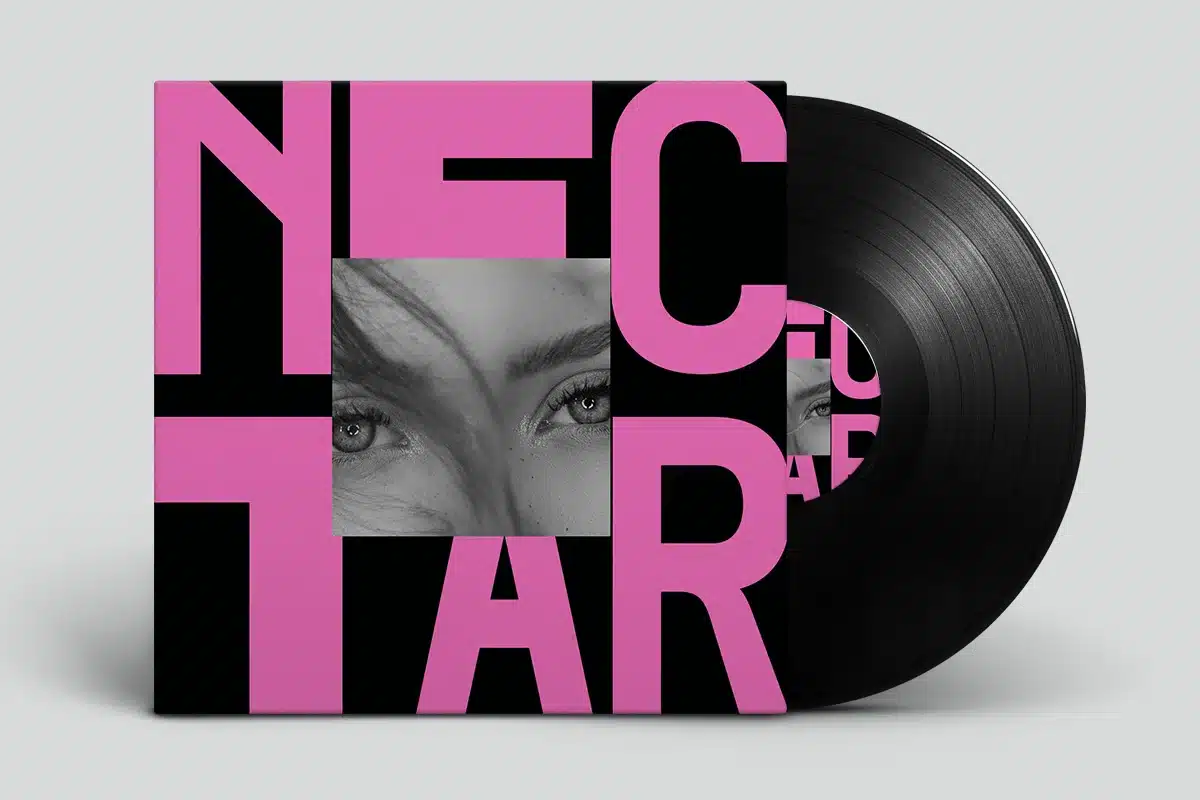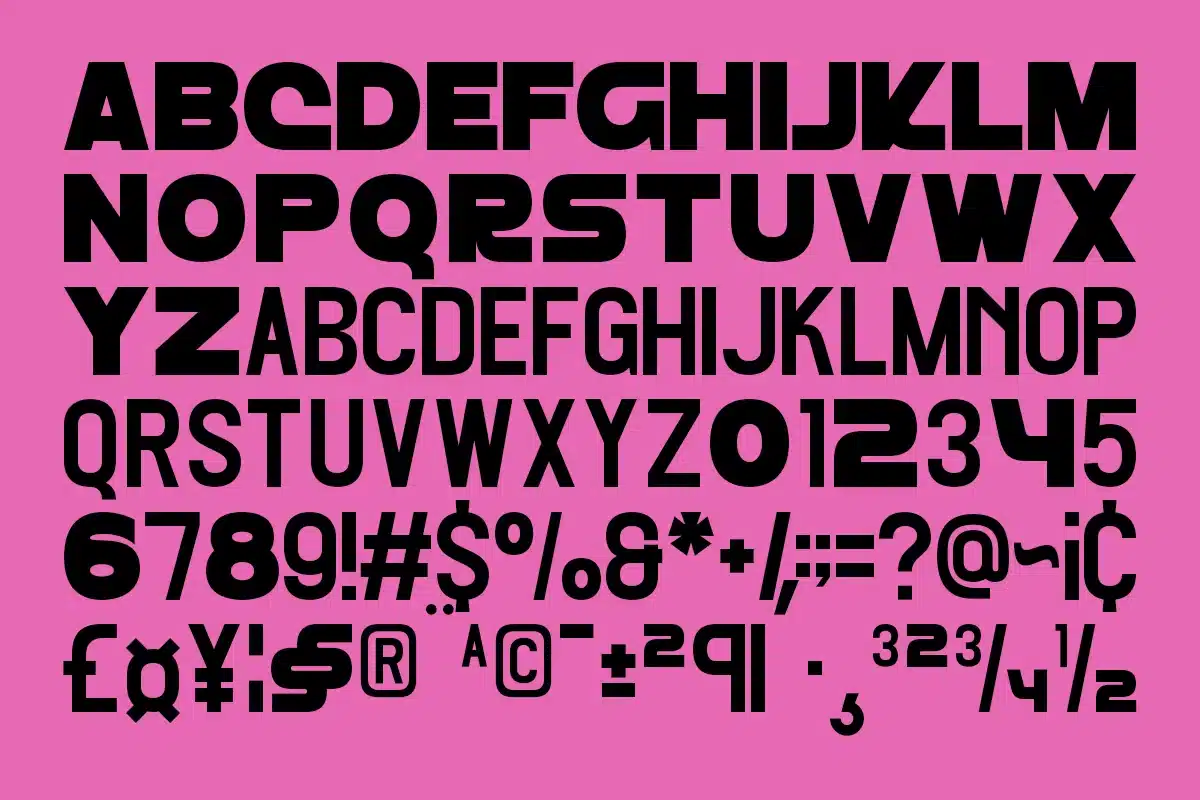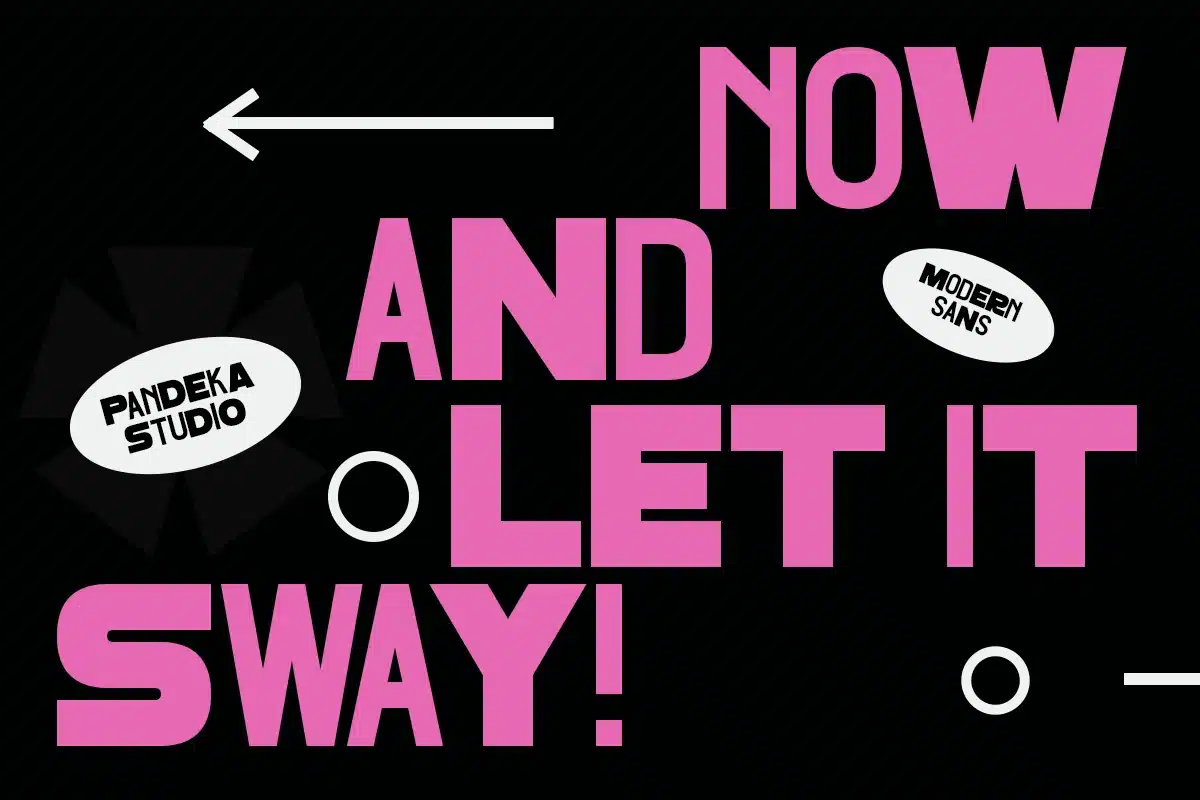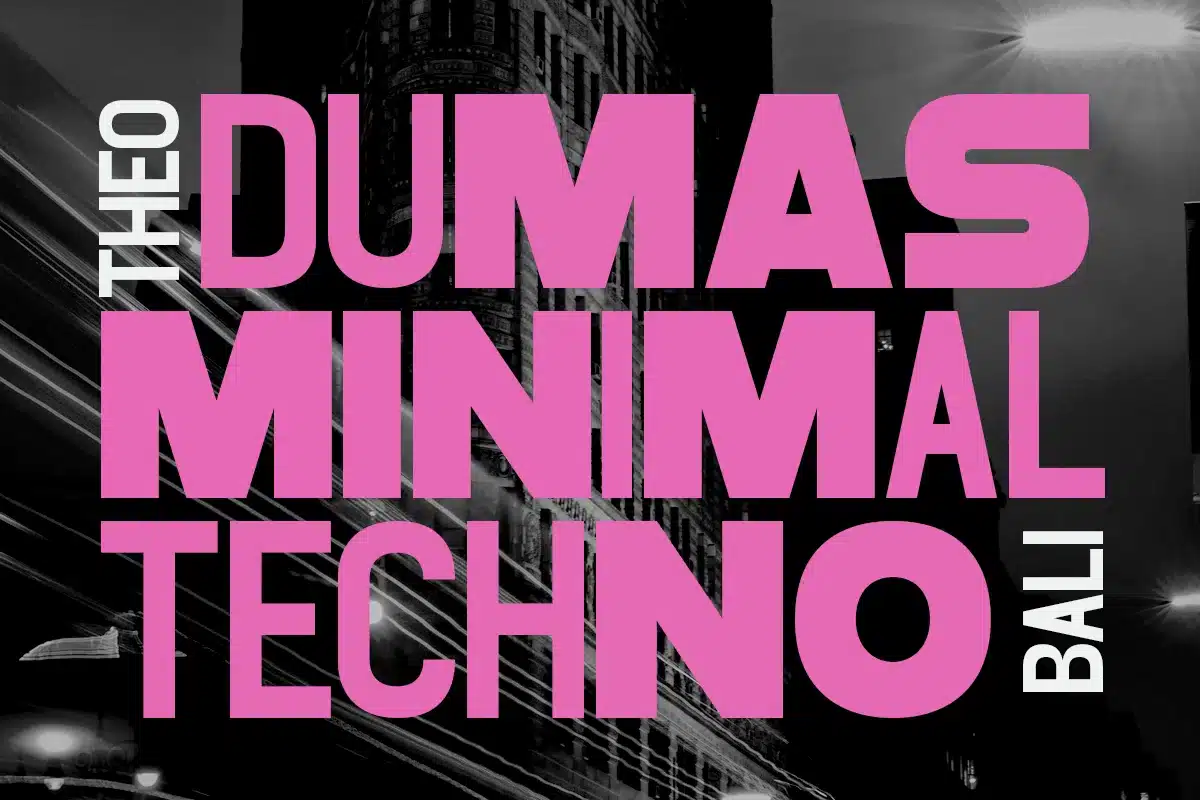
Modern Urban Font – Boomme
Boomme is a bold and modern display font that embodies the energy and rhythm of urban life. Designed with strong geometric shapes and a confident, contemporary aesthetic, Boomme brings a stylish and powerful presence to your creative projects. Perfect for music posters, streetwear branding, club flyers, urban editorials, and event promotions, this font captures the pulse of the modern city.
With its clean structure and impactful character design, Boomme is ideal for brands and creatives who want to make a statement. Every letter delivers a sense of strength, confidence, and motion — perfect for modern typography that demands attention.
Boomme comes in 1 Regular style, including uppercase, lowercase, numbers, punctuation, and multilingual support for flexibility in both print and digital work.